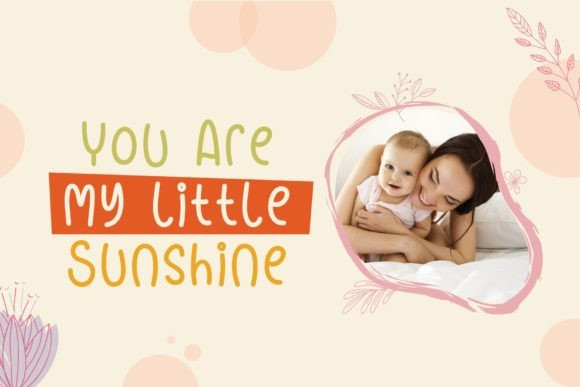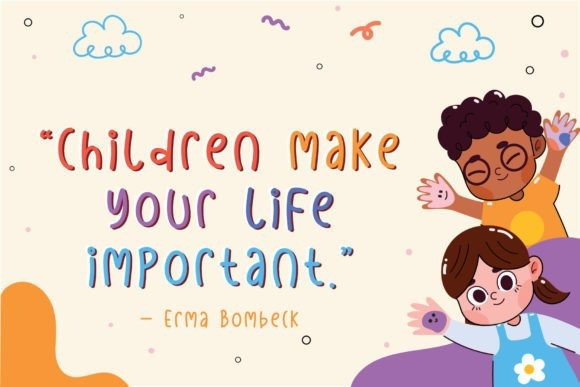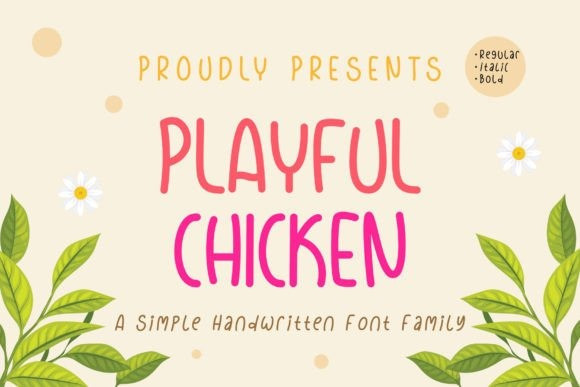
Playful Chicken Font
Playful Chicken Font is a simple and fun handwritten font family that will make your design project more lively and cheerful. This font family features three styles, regular, italic and bold, that will give you more options and versatility. Whether you need to create logos, posters, flyers, banners, or social media graphics, Playful Chicken will add a touch of whimsy and creativity to your designs. Download Playful Chicken today and enjoy this simple handwritten font family.